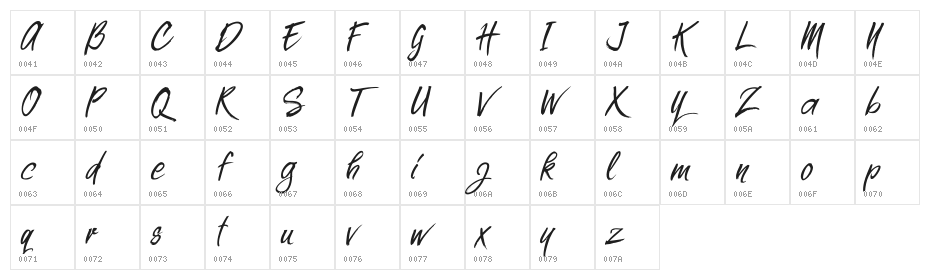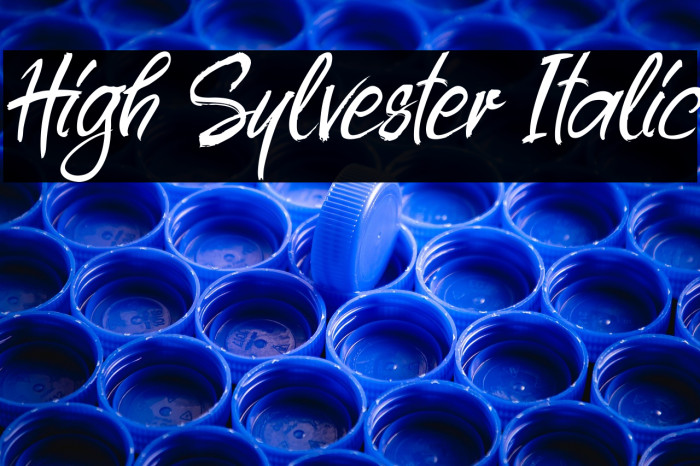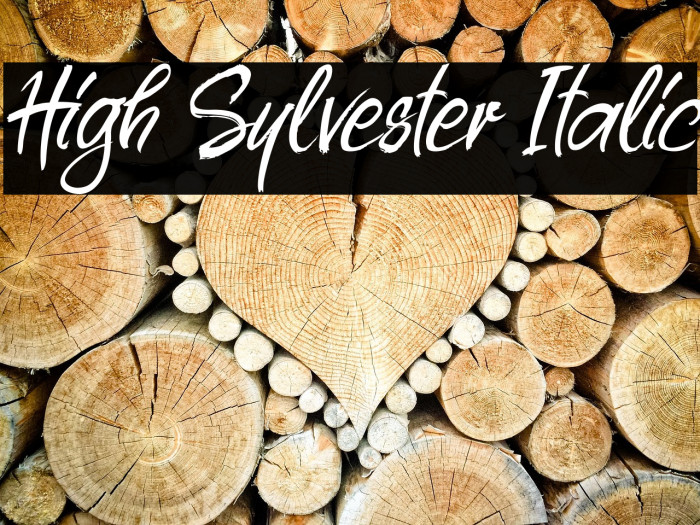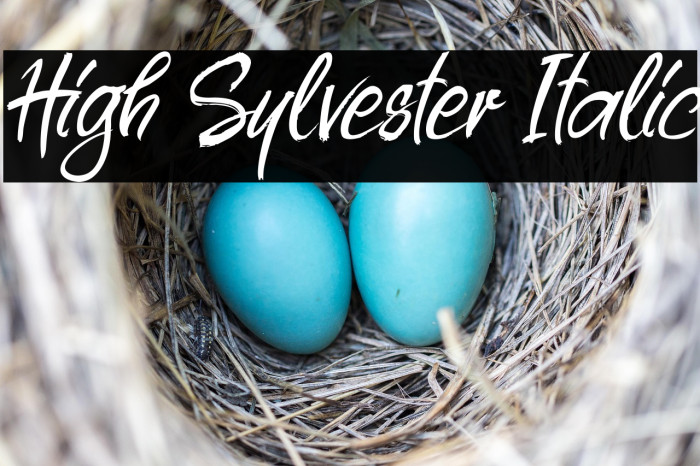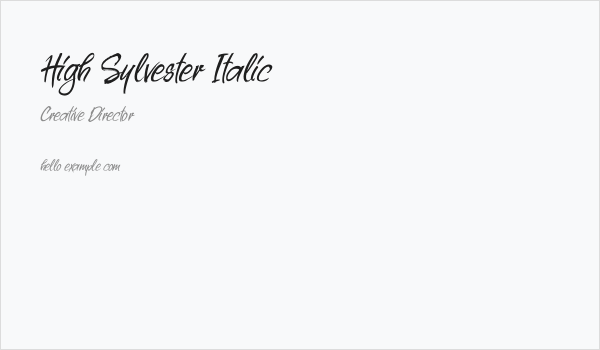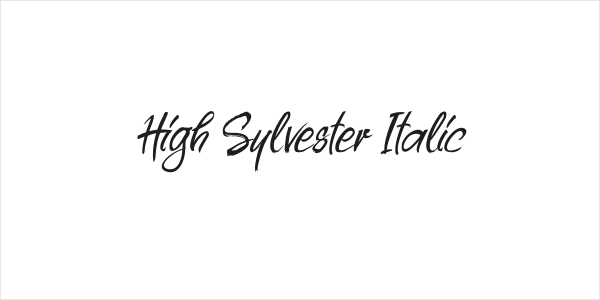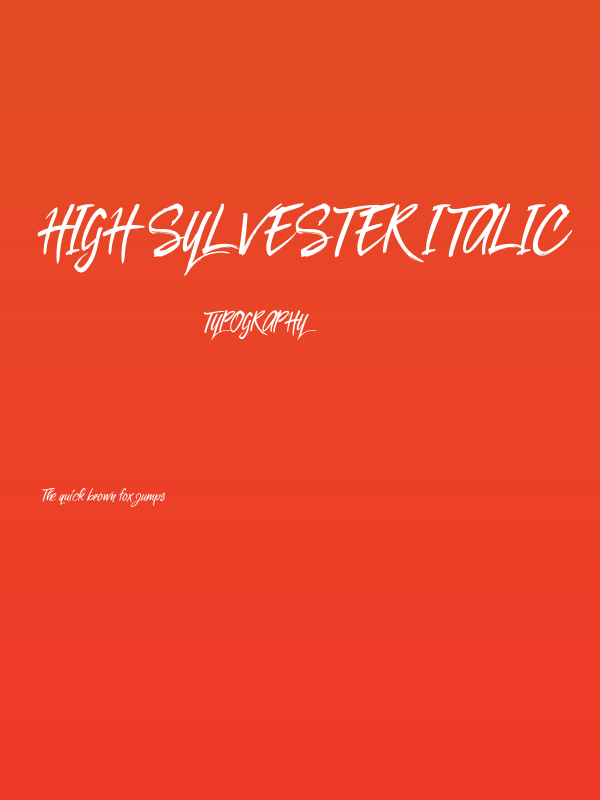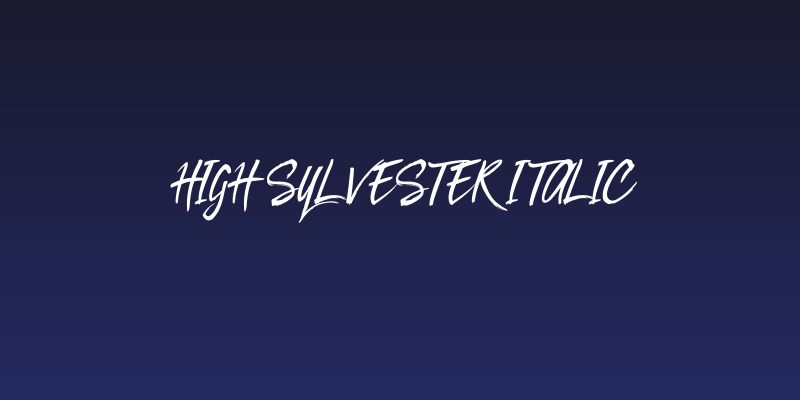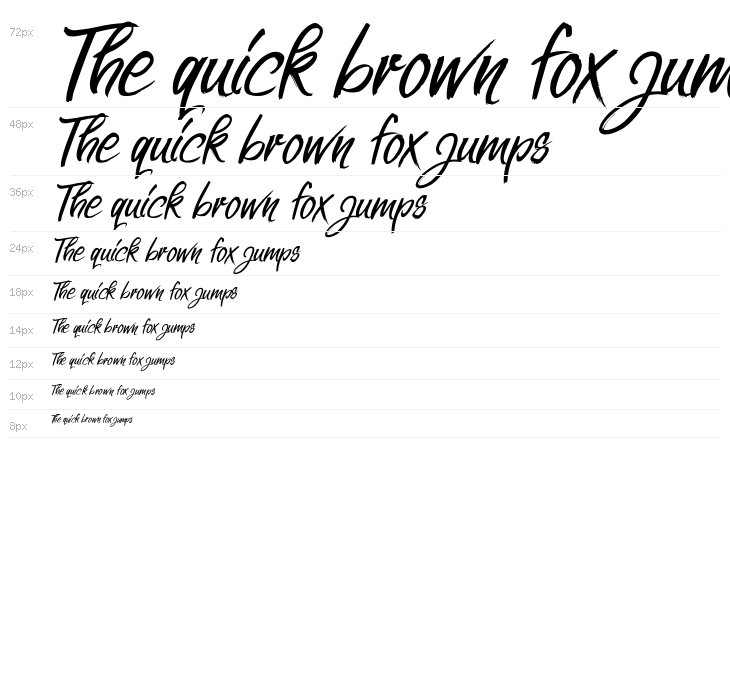
High Sylvester Italic Font
High Sylvester Italic Description
This font exudes a dynamic and energetic style with its bold, sweeping strokes and italicized form. The letters are crafted with a brush-like appearance, giving them a handwritten and artistic flair. The uppercase and lowercase characters maintain a consistent flow, with elongated and slightly exaggerated curves that add to its expressive nature. The font's overall look is both modern and edgy, making it suitable for designs that require a touch of creativity and boldness. The special characters are seamlessly integrated, maintaining the same stylistic approach as the alphabet.
| Proposed Projects | Ideal for branding projects, artistic posters, dynamic social media graphics, and creative advertising campaigns. |